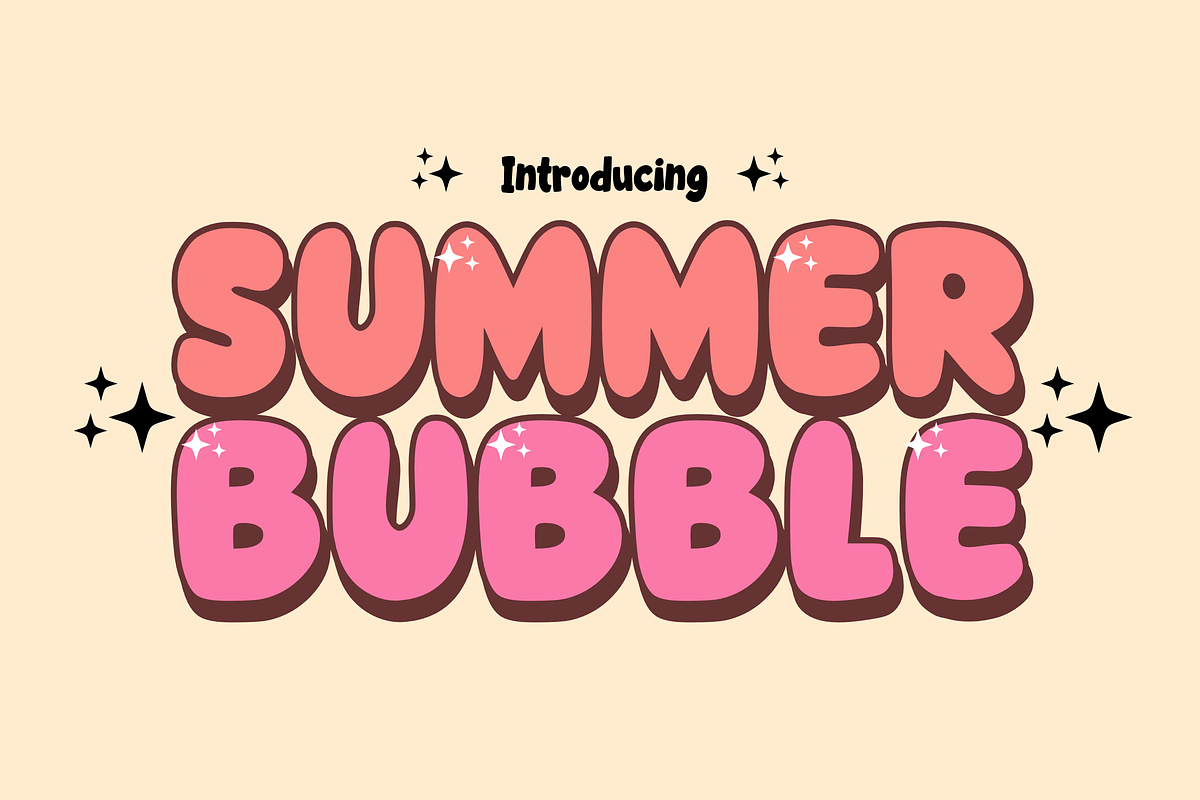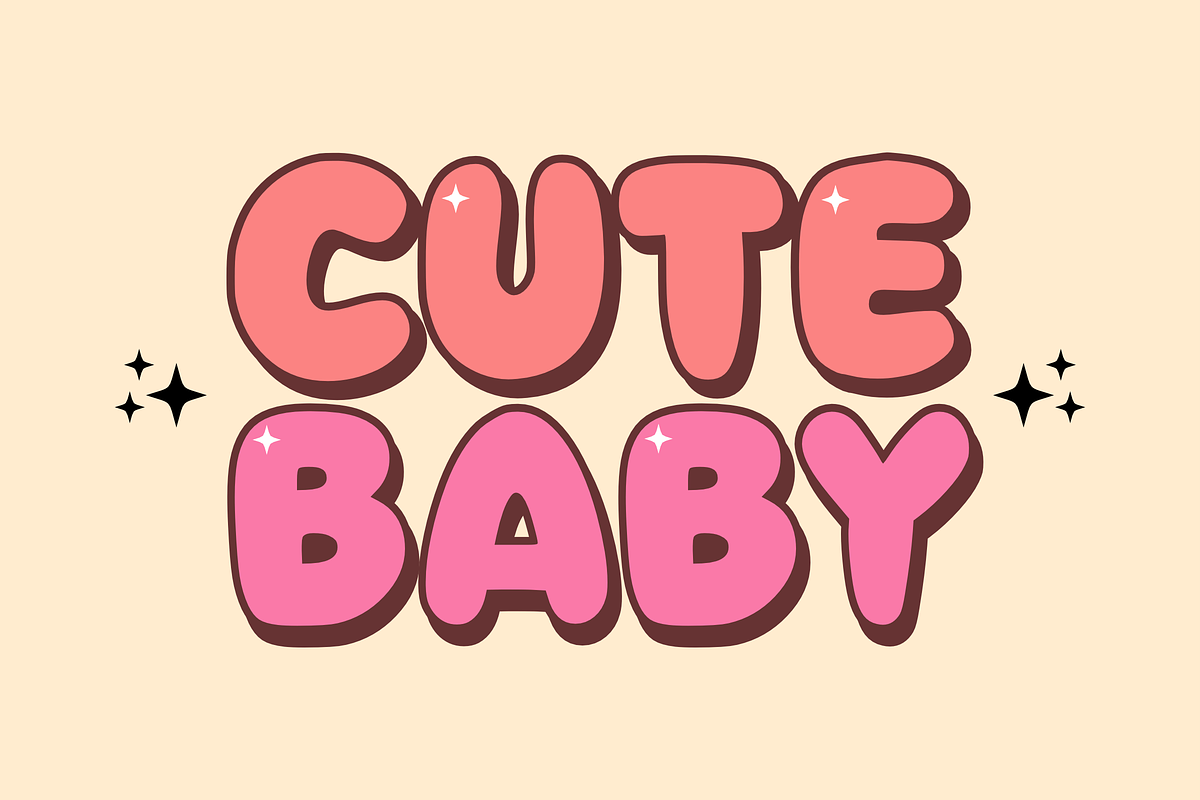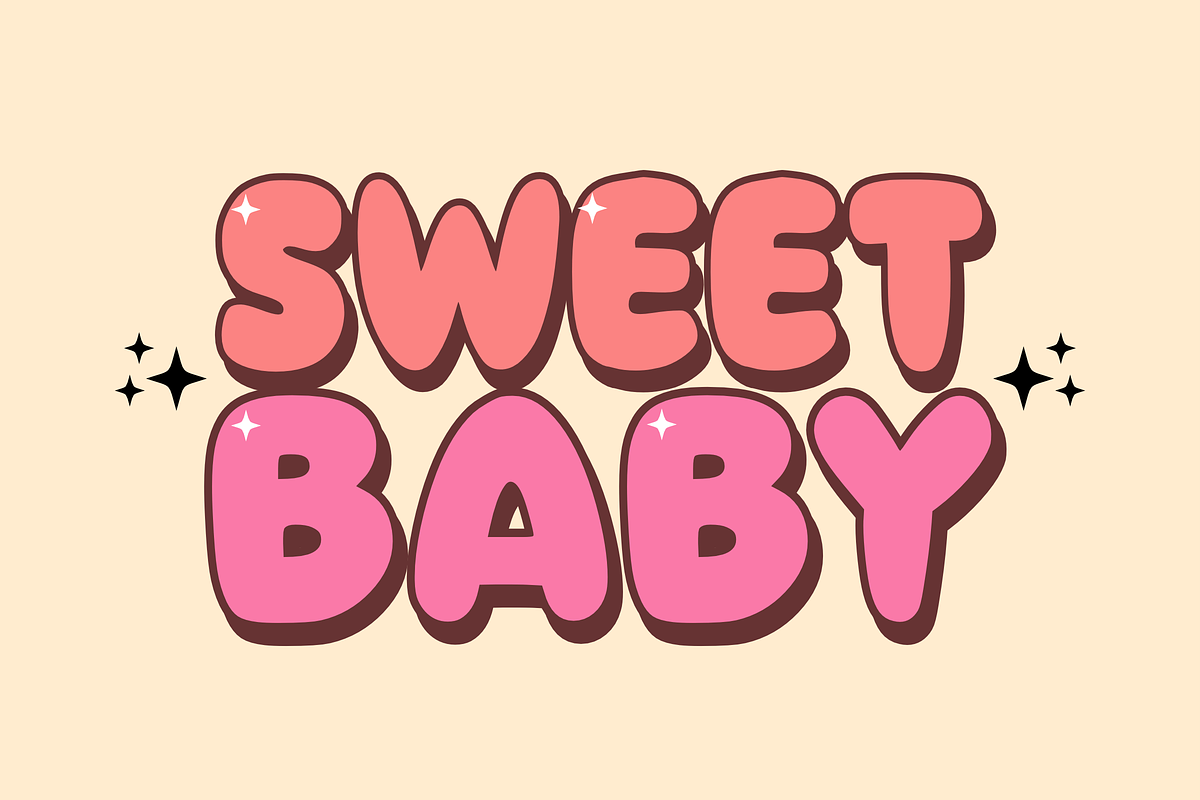
Summer Bubble - Display Font
☀️ Summer Bubble - Refreshing & Bouncy Display Font 🌊 Dive into your next project with Summer Bubble! This vibrant display font captures the warm, carefree energy of a sunny day at the beach. Featuring ultra-chunky, rounded characters with a clean "sticker-style" shadow, it creates a 3D bubbly look that is both refreshing and full of personality.
Whether you're designing for a summer camp, a beach brand, or a tropical party, Summer Bubble brings that perfect "pop" of sunshine to your text!
🏝️ Key Features: 🍦 Bold Uppercase: High-impact, cloud-like letters for standout headlines.
🔢 Numbers 0-9: Playful and consistent numerals for all your summer dates.
⛱️ Simple Symbols: Essential punctuation to complete your sunny messages.
✂️ Sticker Ready: Smooth edges and bold outlines, perfect for vinyl cutting and DIY crafts.
🍹 Perfect For: 🌊 Summer Events: Beach party invites, pool party banners, and festival posters.
🧸 Kids Branding: Tropical-themed toy packaging, apparel, and logos.
🏫 Seasonal Decor: Summer camp flyers, classroom displays, and vacation scrapbooks.
📱 Social Media: Vibrant YouTube thumbnails and energetic travel vlogs.
👕 Merchandise: Fun t-shirt designs, tote bags, and personalized water bottles.